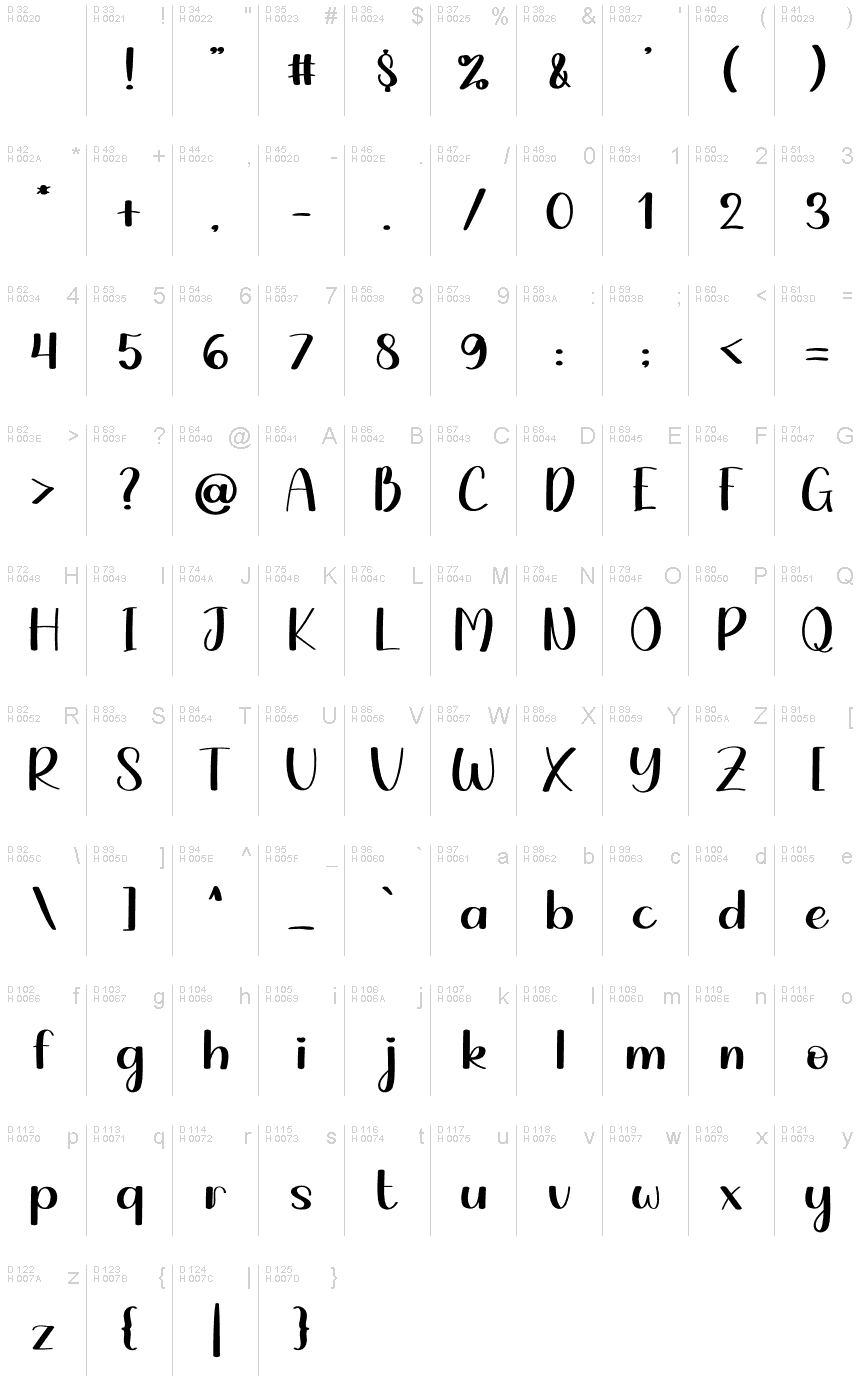
Im Jealous
Im Jealous, the stunning semi-bold font by Erik Studio, is a must-have for designers and creatives alike. This exquisite handwritten font boasts clean lines and a contemporary feel, making it perfect for modern projects that require a touch of elegance. Whether you're designing invitations, branding materials, or social media graphics, Im Jealous will help your projects stand out from the crowd. With its unique character and versatility in style, this font is ideal for both print and digital media. So why not add a little envy to your designs with Im Jealous?